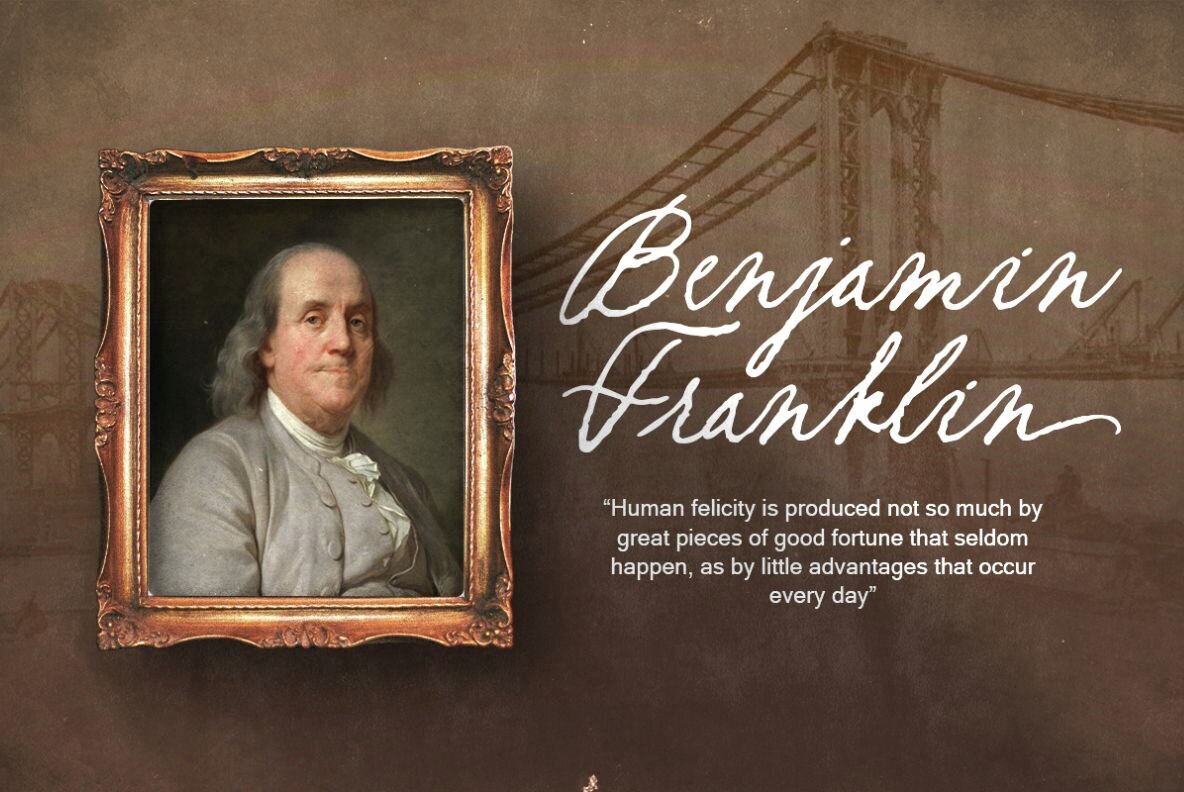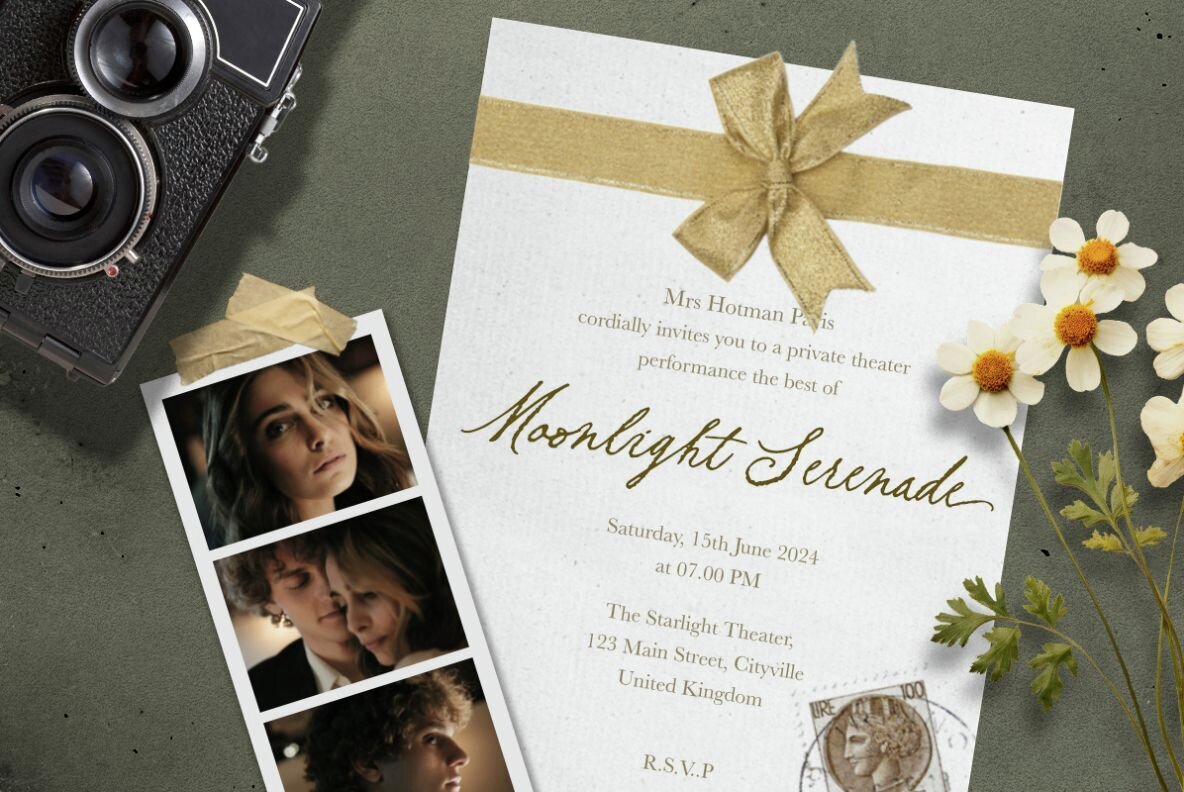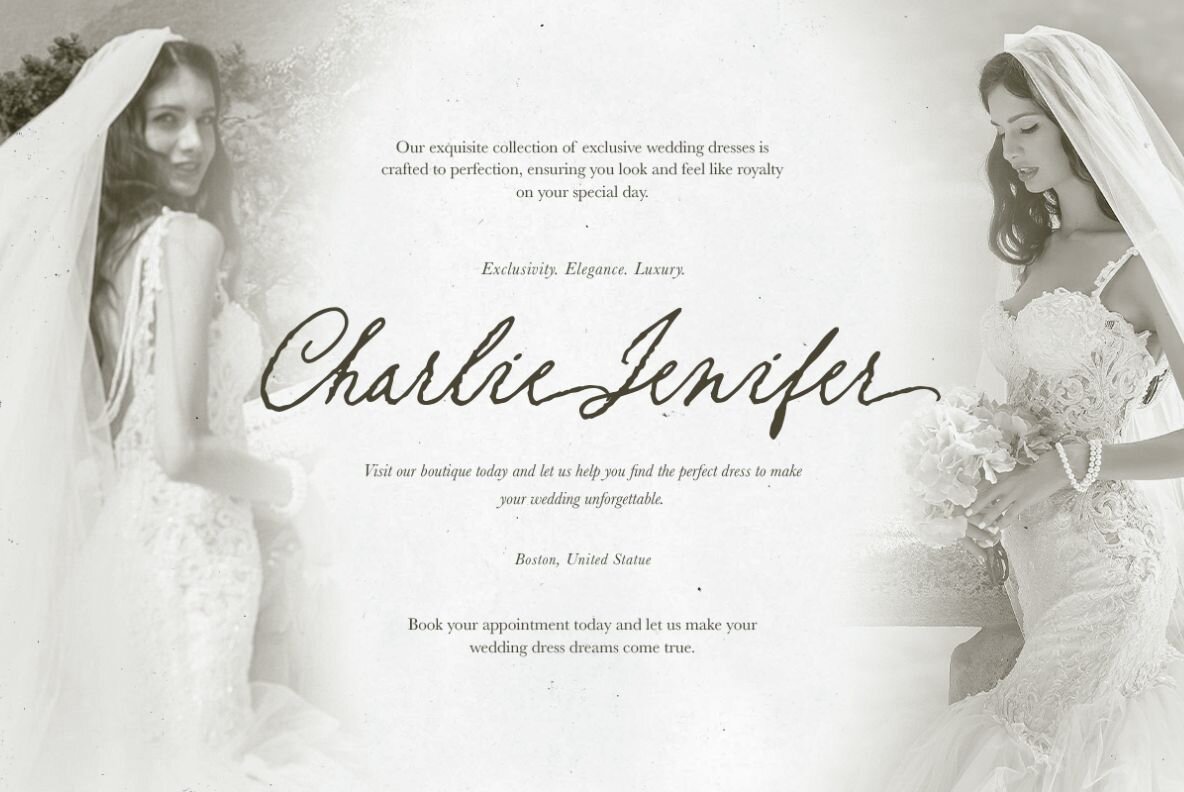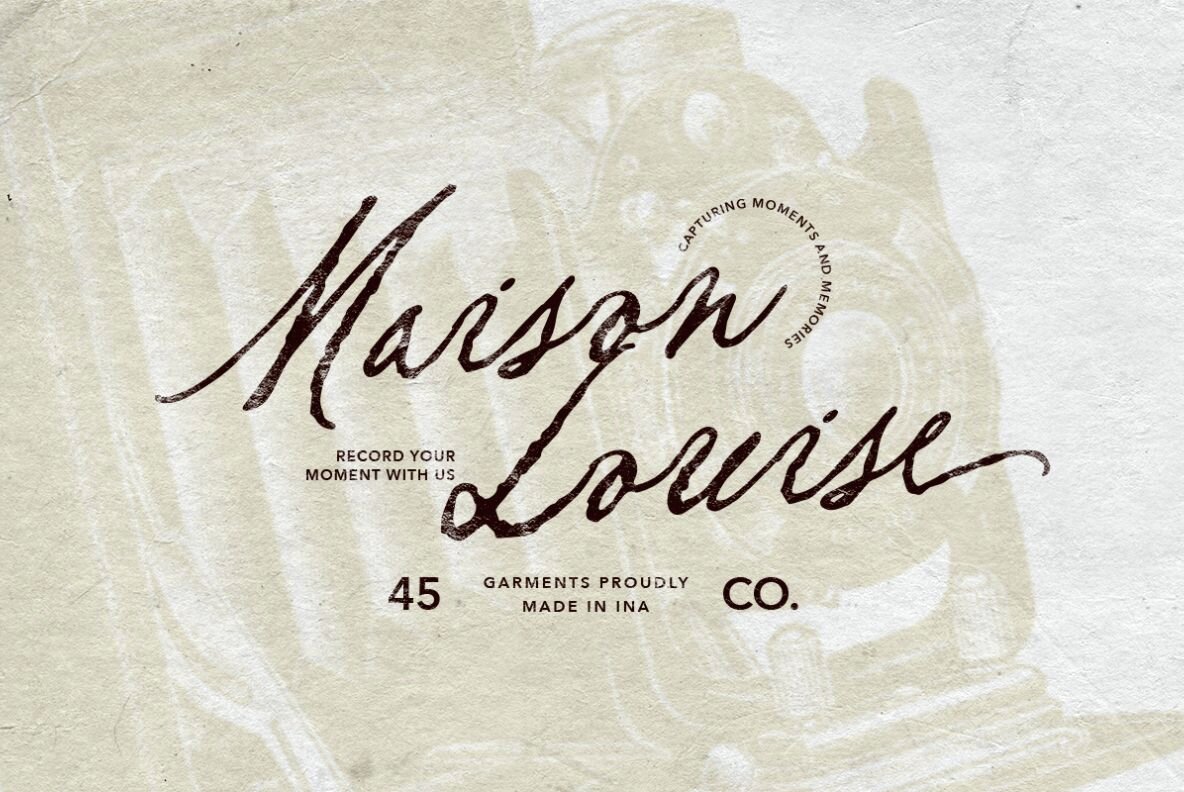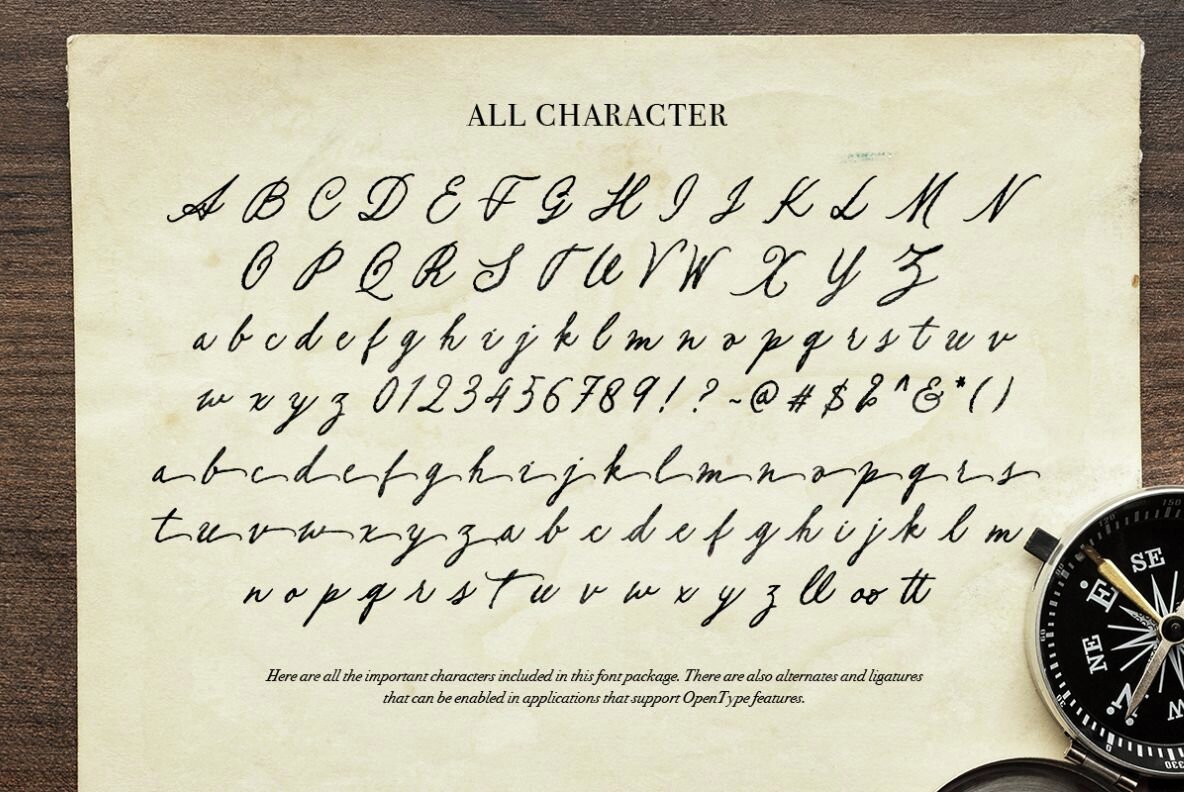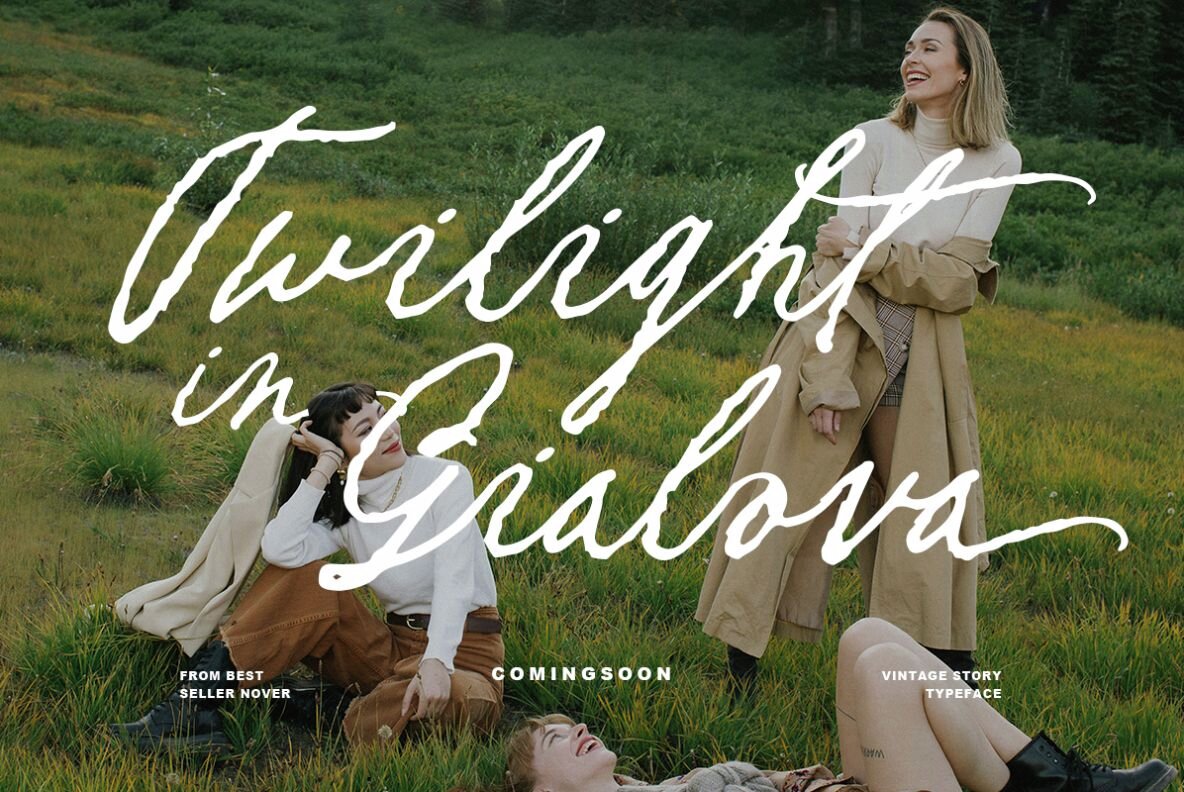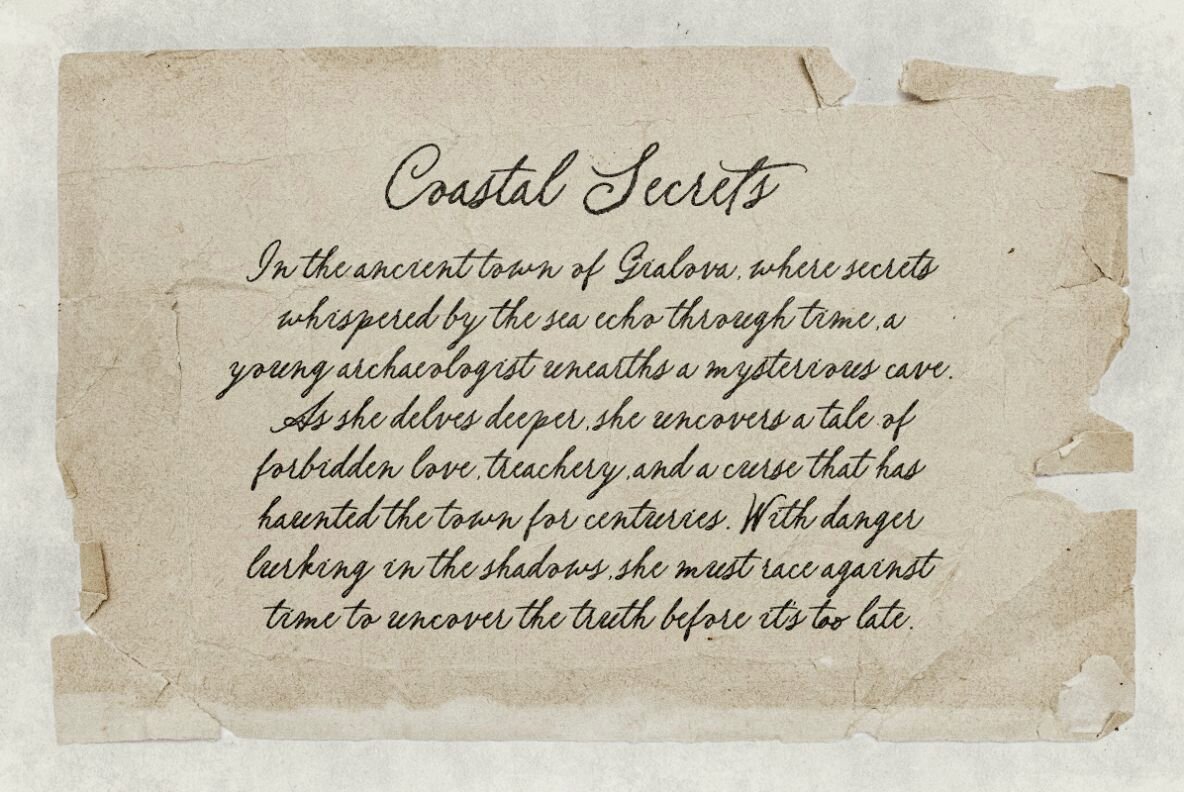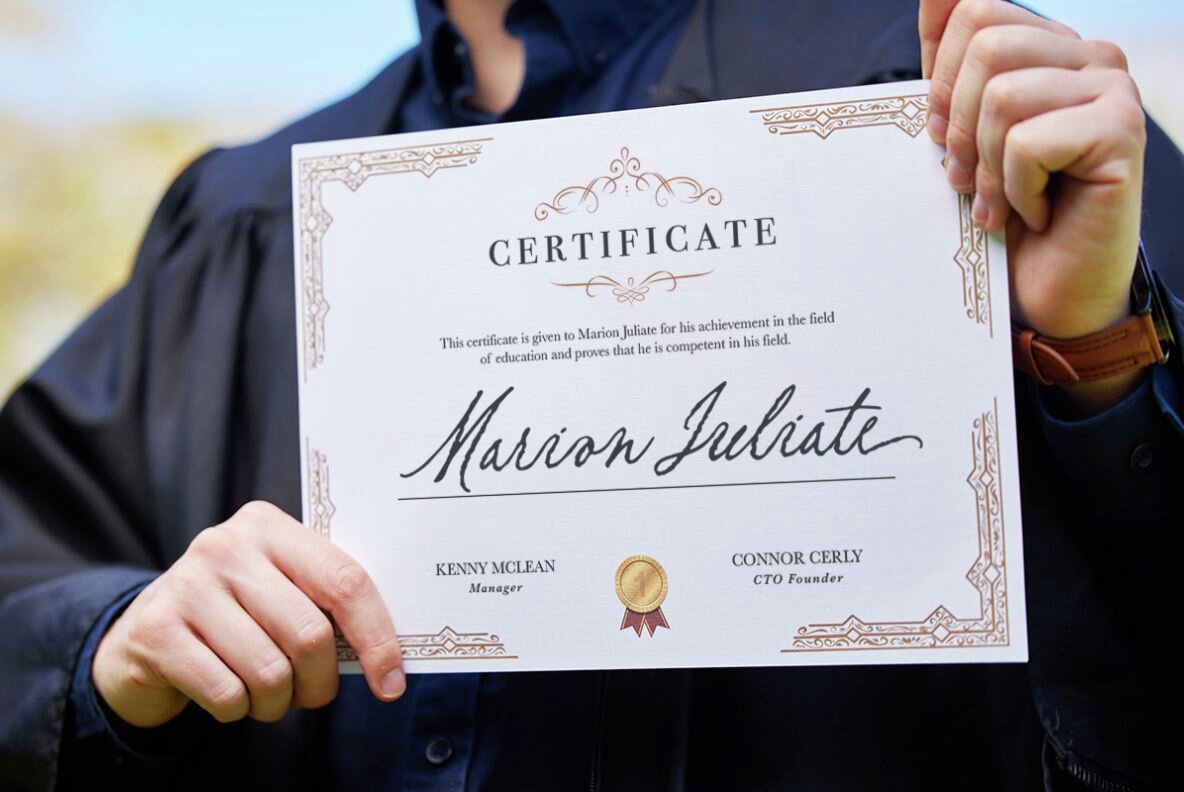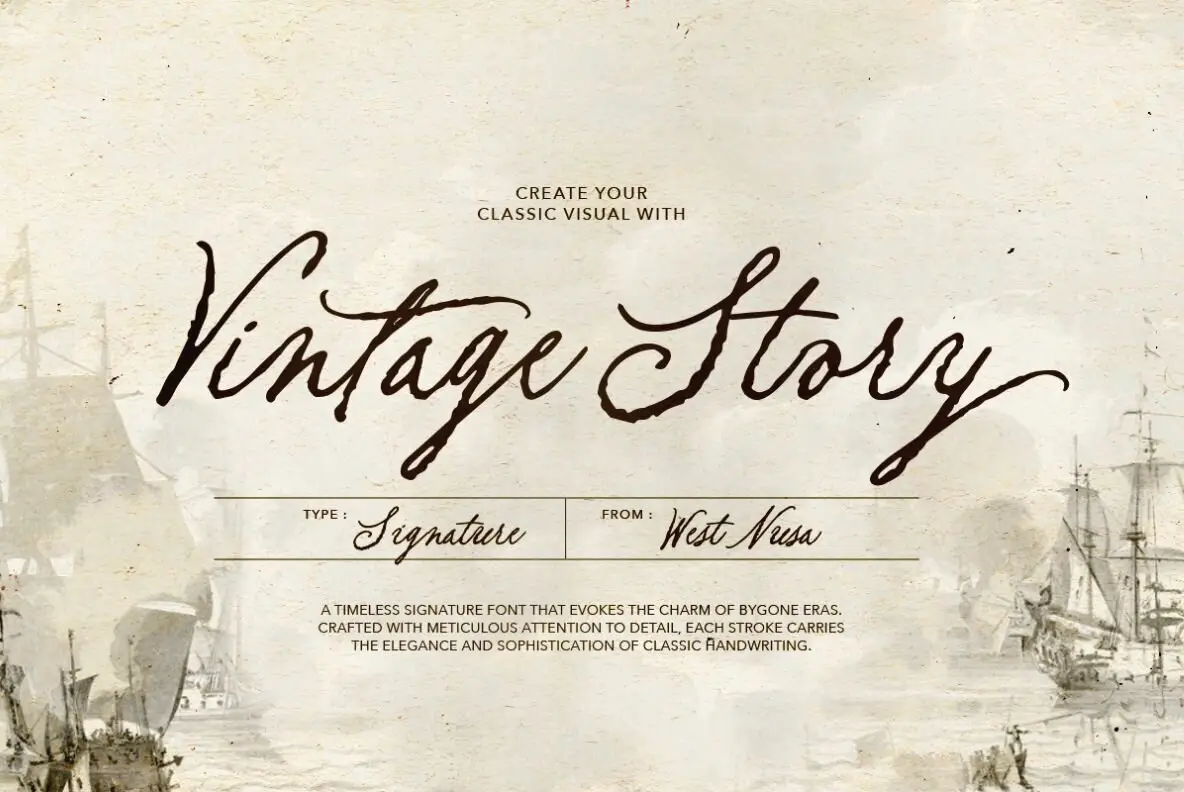
Vintage Story Font
Vintage Story Regular
Vintage Story is a sophisticated handwritten script font that exudes elegance and the charm of a bygone era. Ideal for projects that require a touch of nostalgia, such as wedding invitations, classic branding, and personal signatures, this typeface offers a flowing and personal touch that evokes classic handwriting. Perfect for designers looking to add a timeless and expressive element to their work.